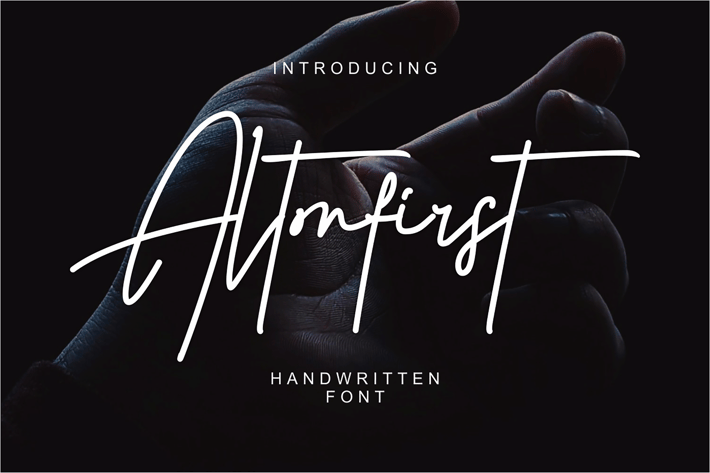
Altonfirst Handwritten Font
Introducing Altonfirst Font
Altonfirst is a gorgeously light and charming script, perfect for branding projects, logos, wedding designs, and much more!